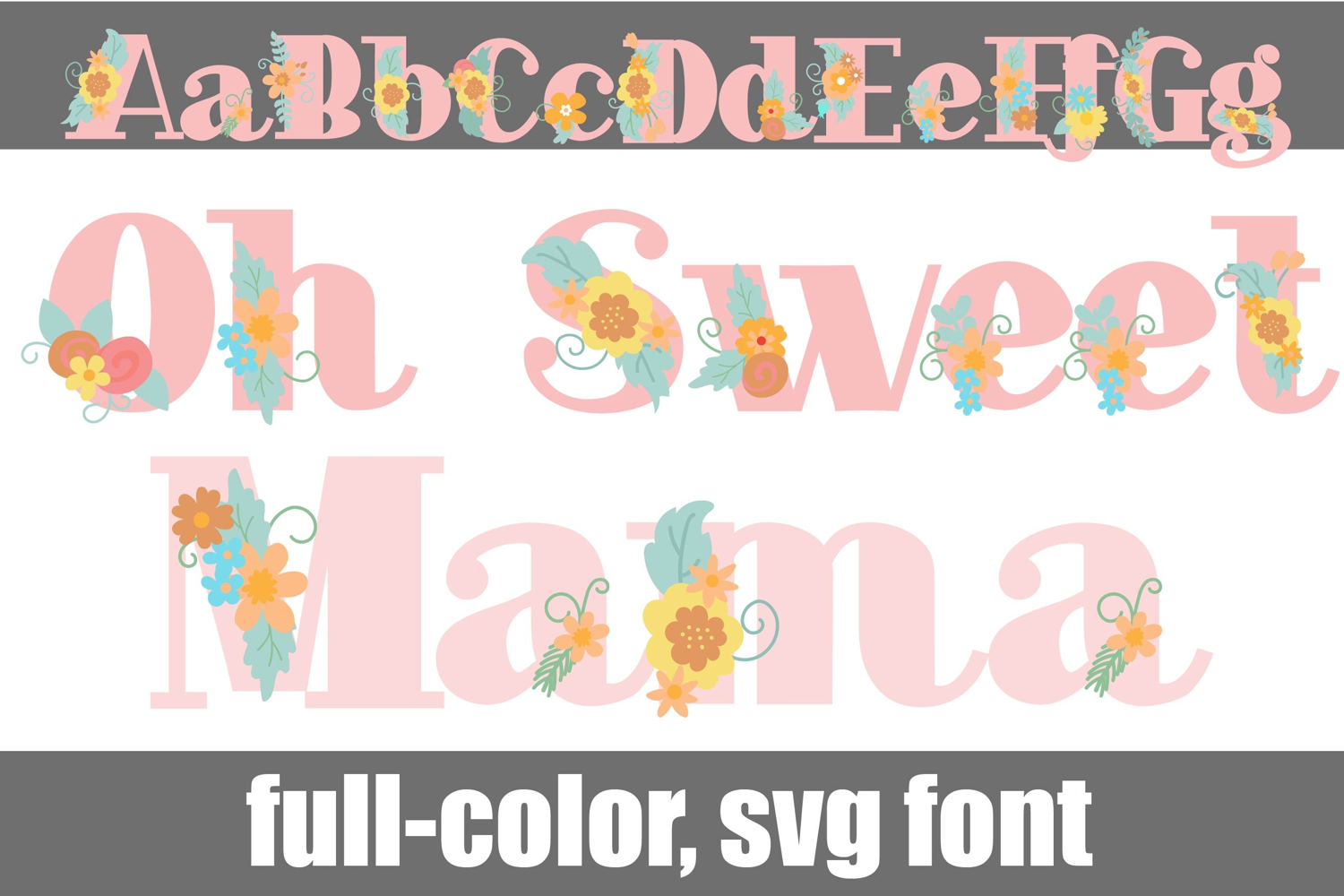
Oh Sweet Mama Color Font
This full-color serif font features florals throughout. There is an alt case of additional colors of each letter that you can access through your system's character map.